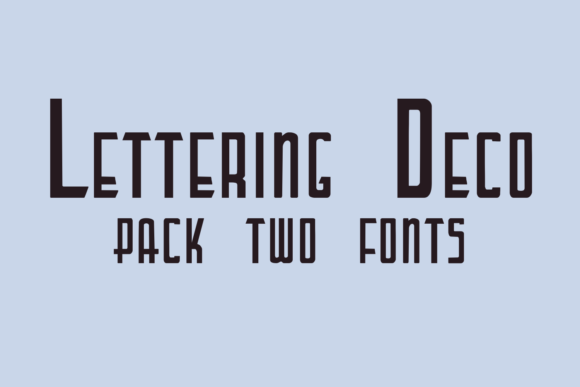
Unleash the Timeless Elegance of Lettering Deco: A Masterpiece of Art Deco Typography
Journey back to the glamour and sophistication of the roaring twenties with Lettering Deco, a classic art deco font that captures the essence of the era. This display font, meticulously crafted by Intellecta Design, exudes a timeless allure that will elevate your designs to new heights.
Immerse yourself in the intricate details and sharp angles of Lettering Deco, a font that embodies the spirit of art deco with its bold geometric shapes and distinctive serifs. Available in both regular and shadow versions, Lettering Deco presents endless creative possibilities, allowing you to craft striking designs that command attention.
With Lettering Deco, you hold the key to creating designs that ooze sophistication and elegance. Its versatile nature makes it the perfect choice for a wide range of projects, from vintage-inspired logos and posters to eye-catching social media graphics and web designs. Lettering Deco seamlessly adapts to any context, lending a touch of timeless charm and visual intrigue.
Transport your audience to a bygone era of glamour and luxury with Lettering Deco. Its ability to evoke a sense of nostalgia and elegance makes it an ideal choice for projects that aim to capture the essence of the past. Unleash your creativity and let Lettering Deco guide you on a journey of artistic exploration.
Embrace the allure of Lettering Deco and embark on a creative adventure where classic elegance meets modern versatility. Let your designs radiate the timeless beauty of art deco, leaving an unforgettable impression on your audience.